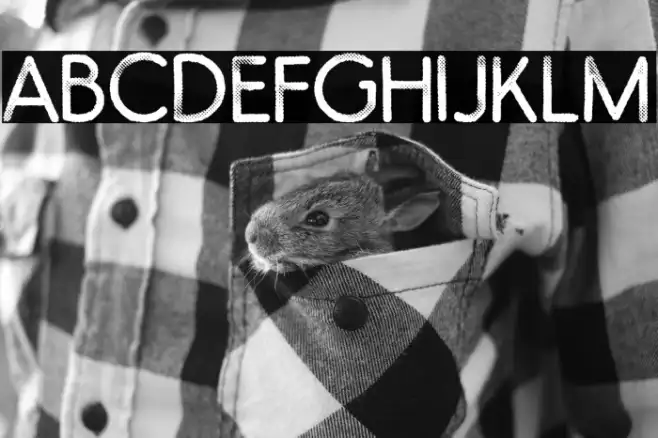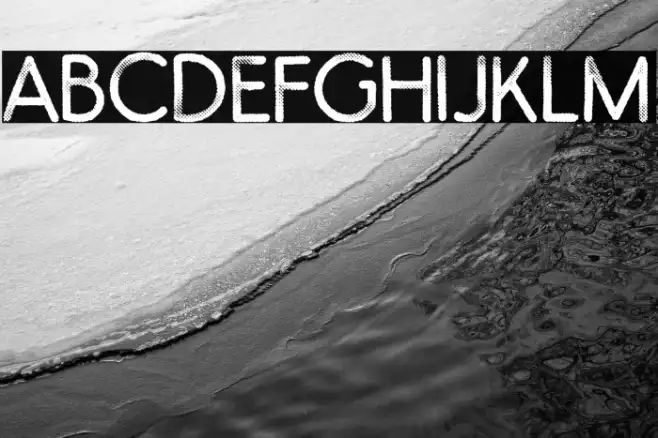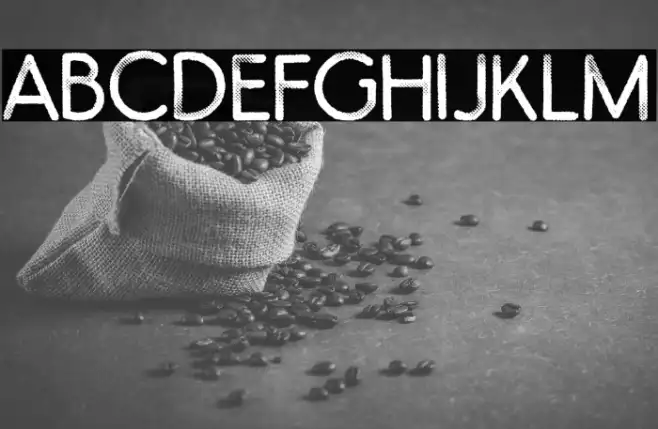
LOST AGES Font
This font features a bold and playful design with a distinct halftone texture that gives it a retro, vintage feel. The characters are rounded and slightly condensed, providing a unique aesthetic that stands out. The uppercase and lowercase letters maintain consistent proportions, ensuring readability while adding a touch of whimsy. The numbers and special characters follow the same stylistic approach, making the font versatile for various creative applications. Its textured appearance suggests a handcrafted quality, ideal for projects that require a nostalgic or artistic touch.
A bold, textured font with a retro, playful style.
- Font: LOST AGES
- Proposed Projects: Ideal for vintage posters, retro-themed branding, artistic book covers, and creative social media graphics.
- Overall Style: Vintage